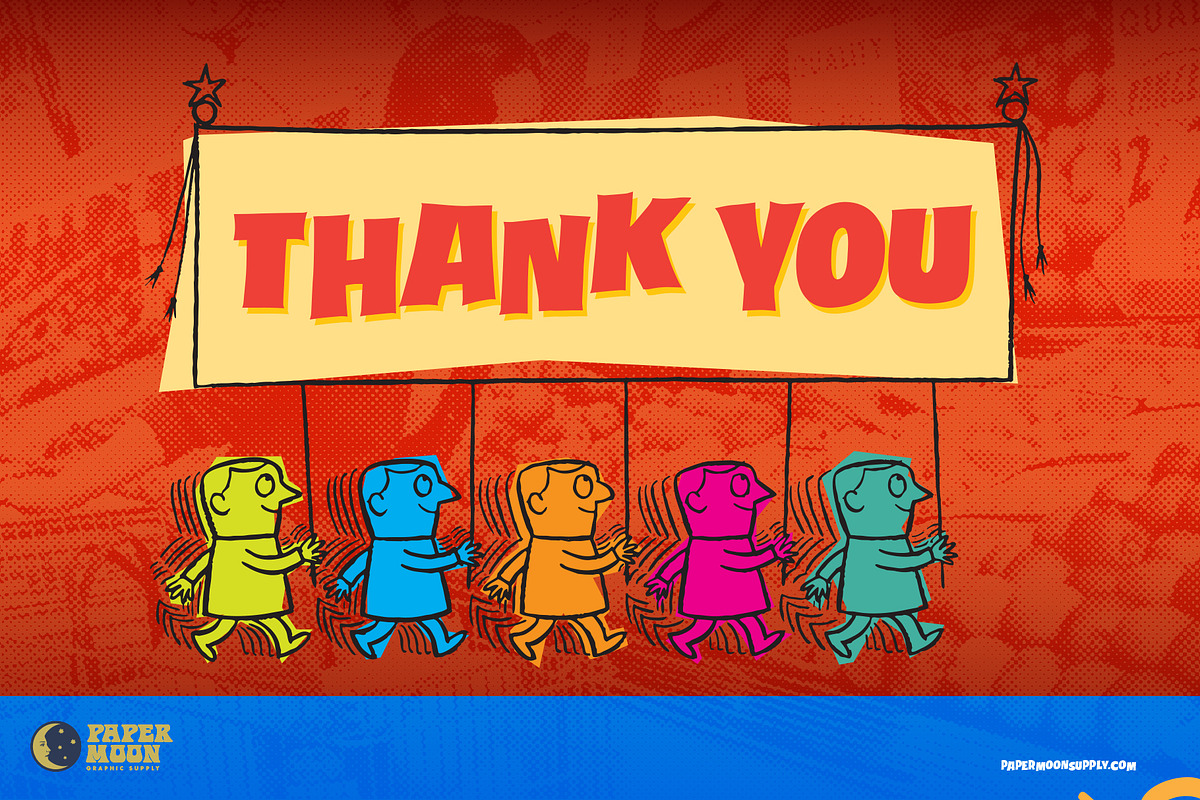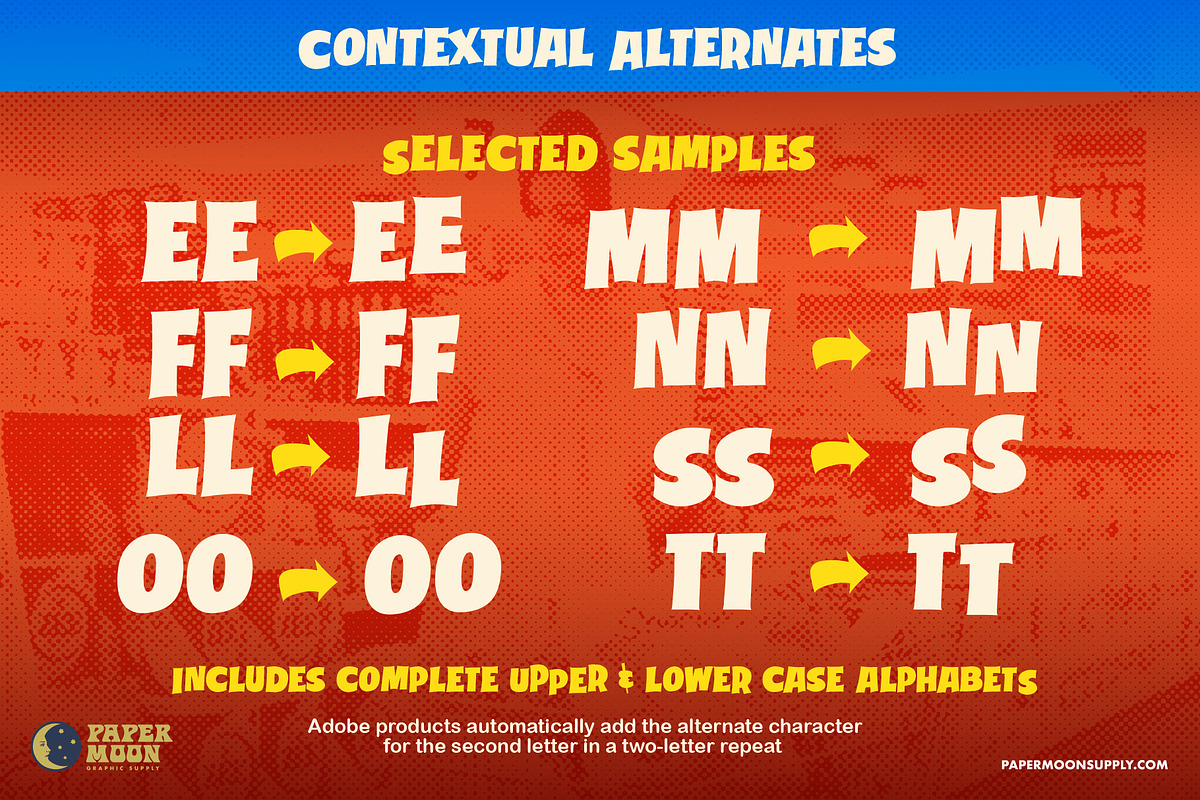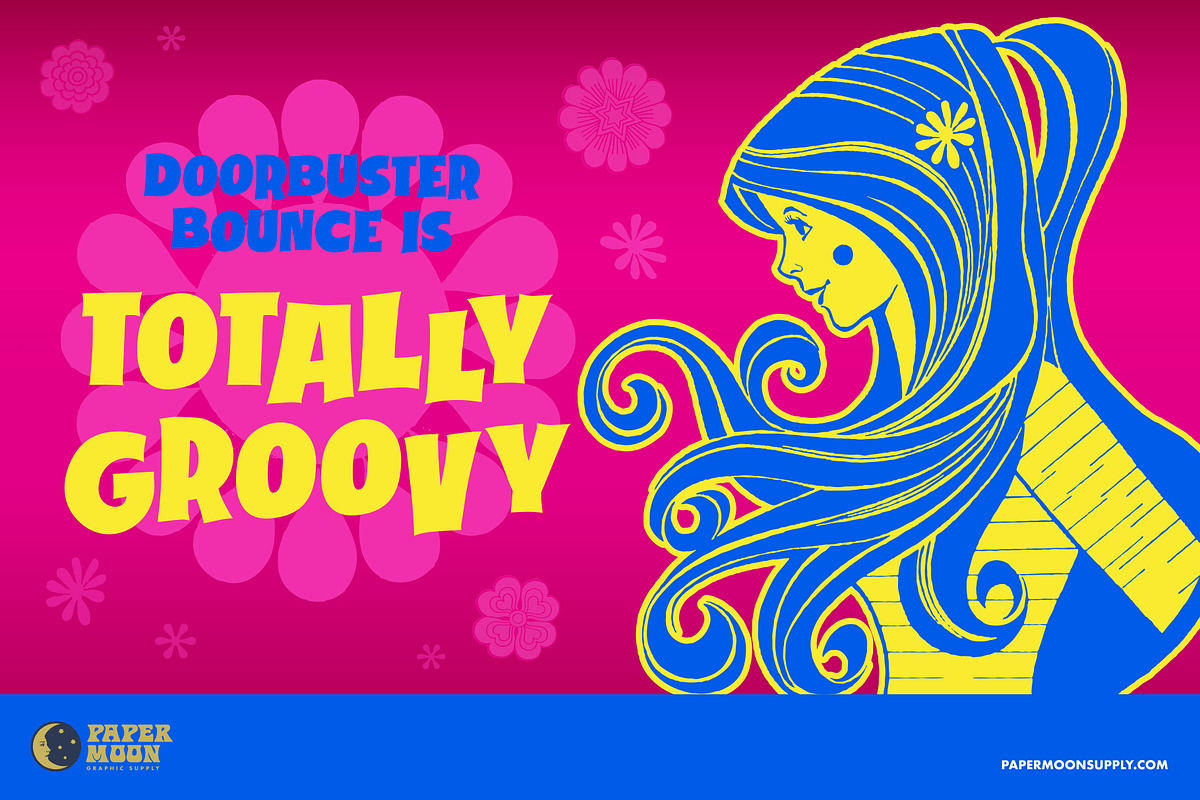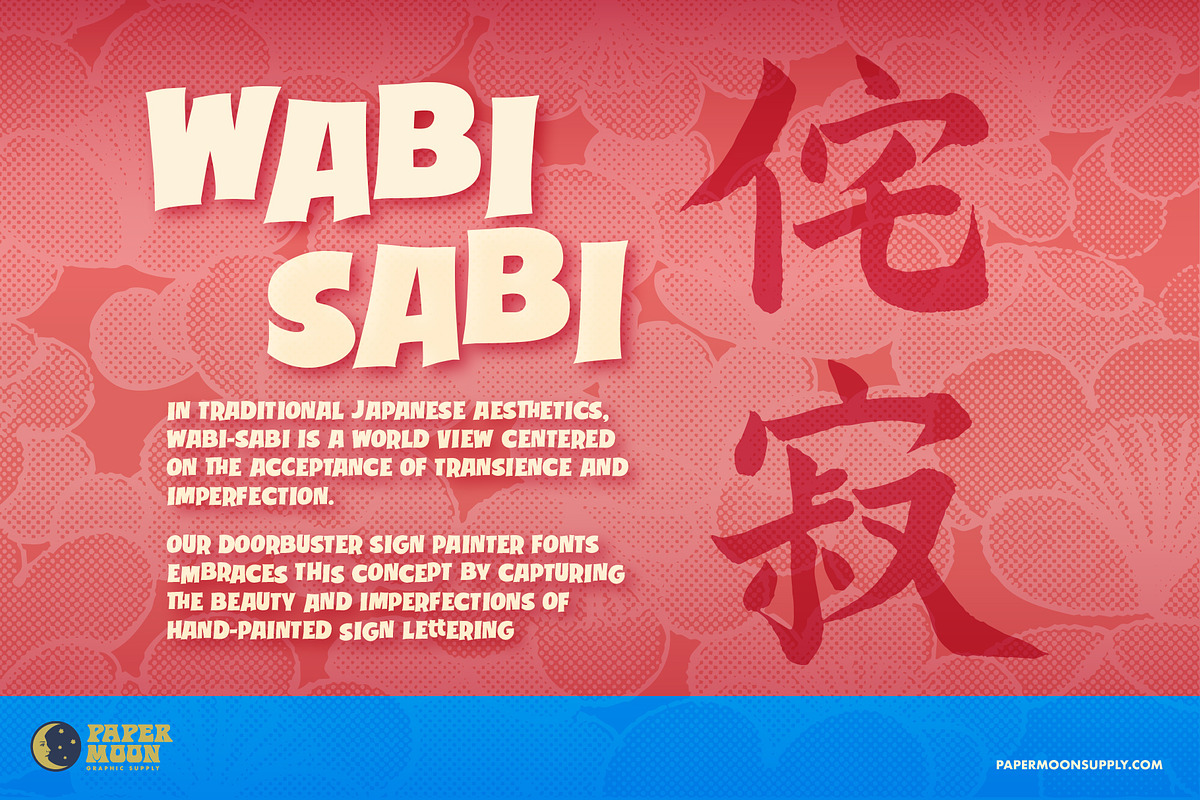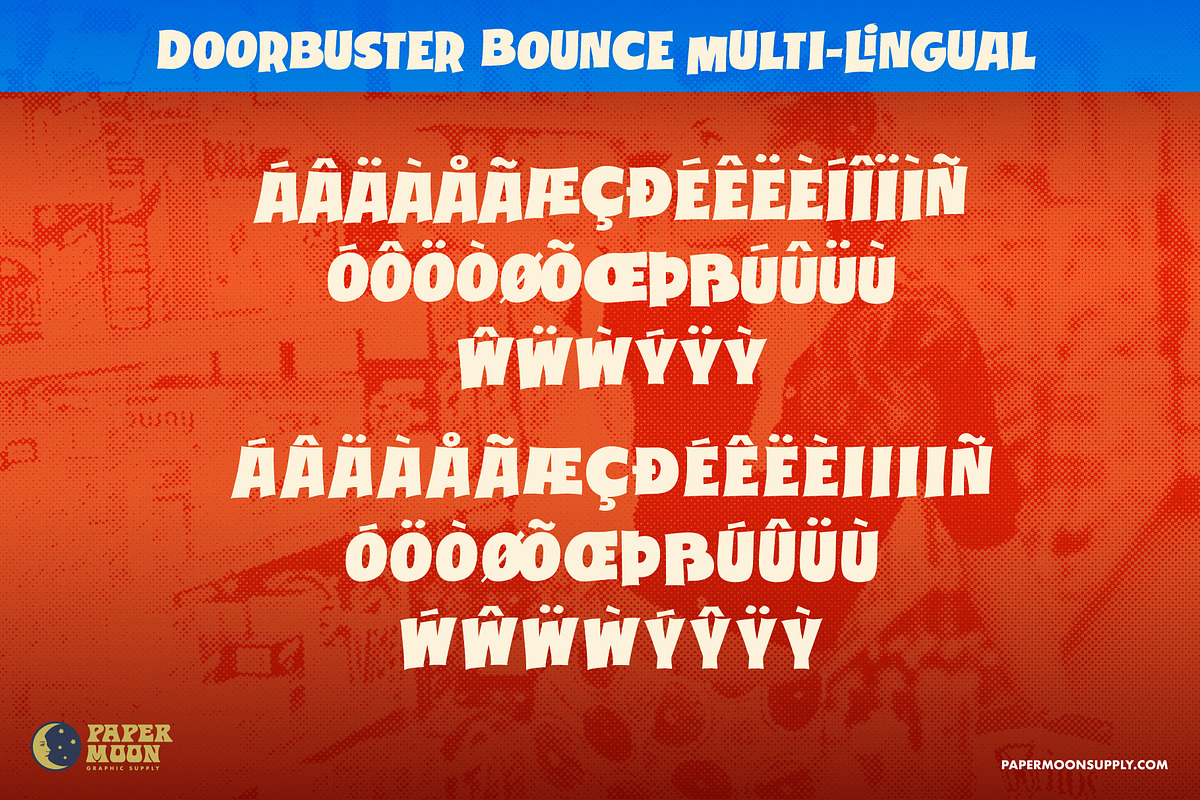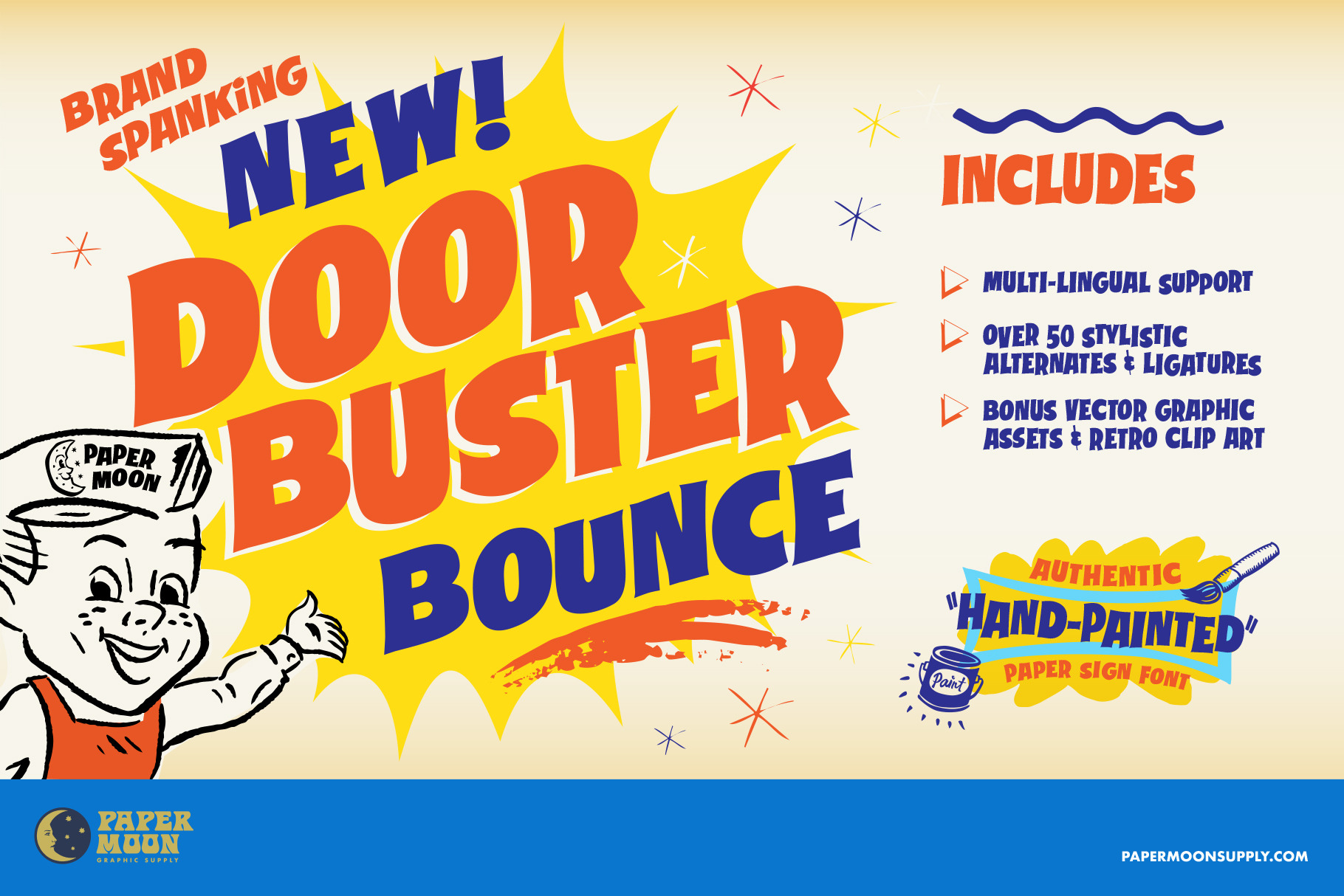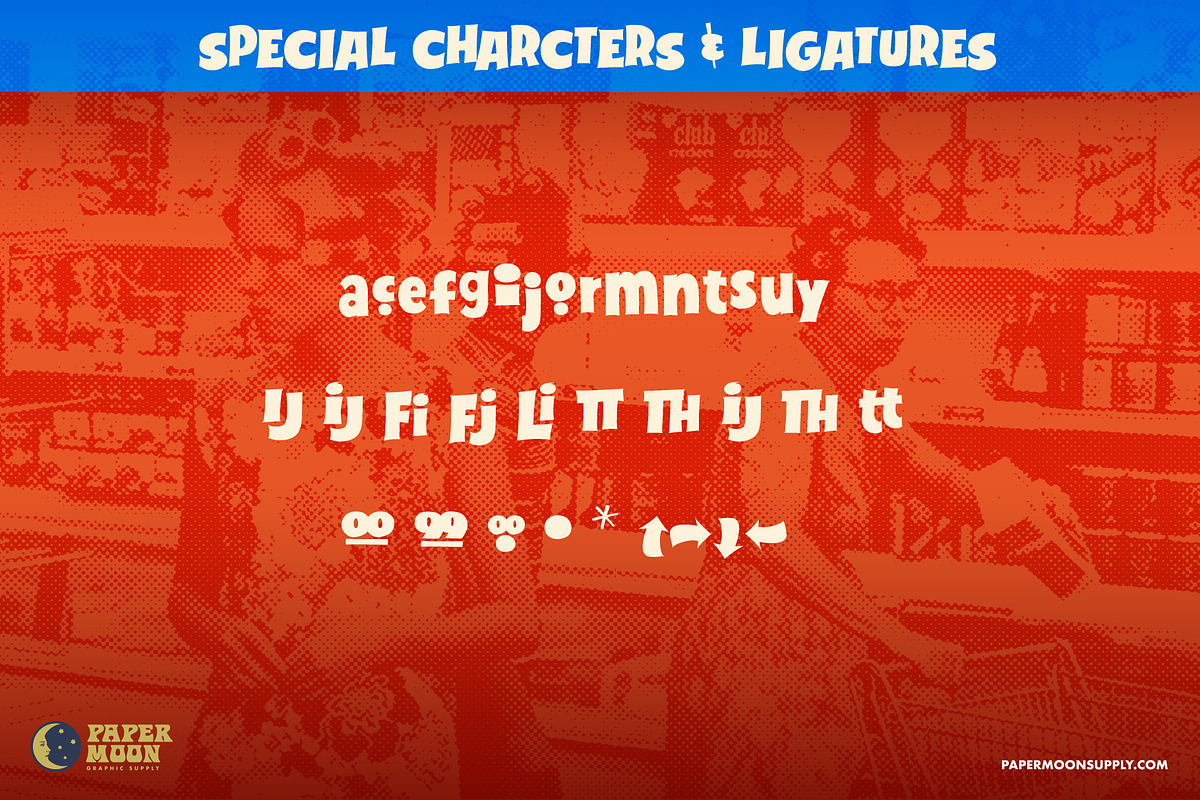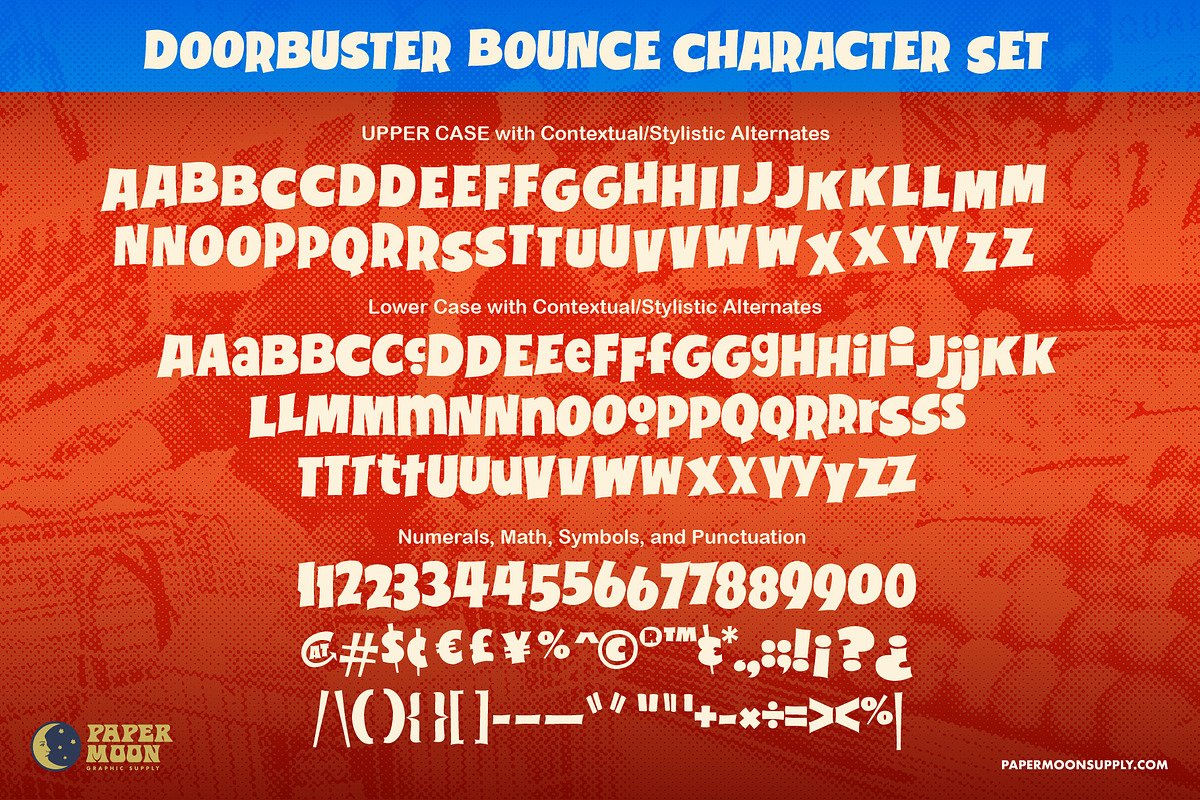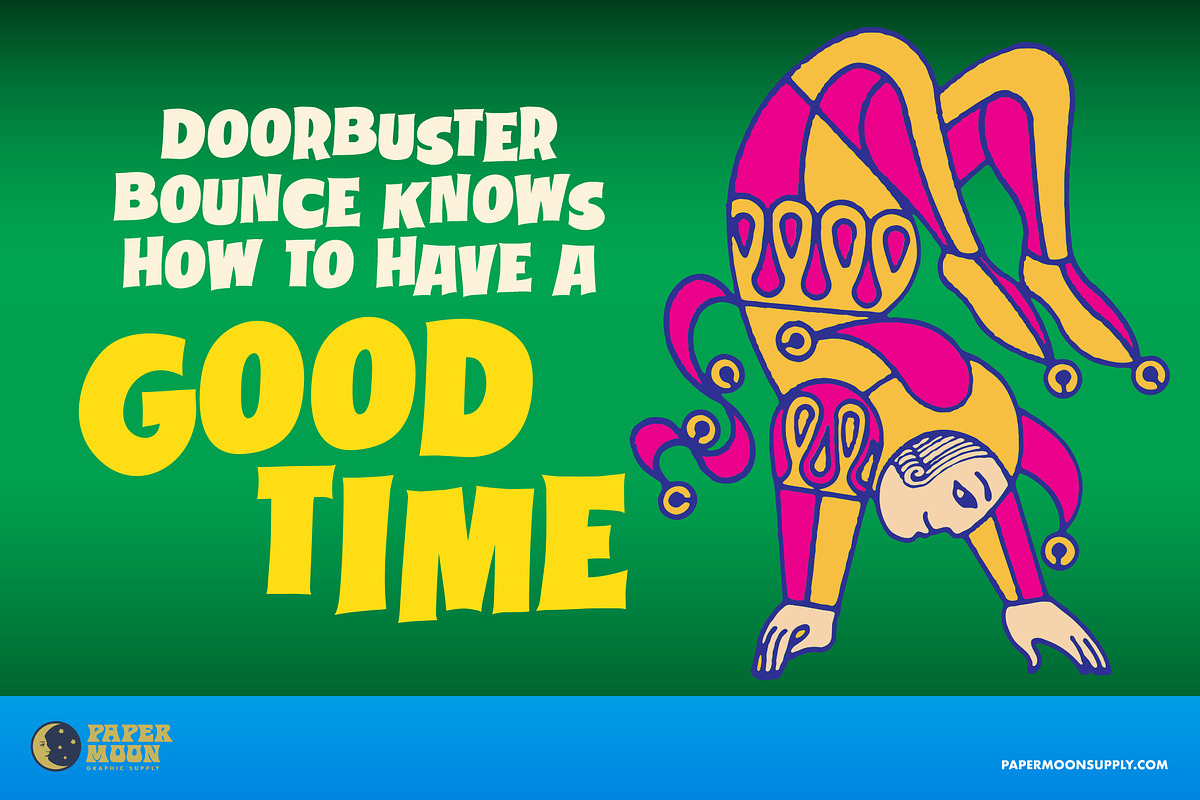
Doorbuster Bounce Sign Painter Font
A new font inspired by vintage hand-painted paper signs.
The Doorbuster collection is based on retro hand-painted paper signs primarily seen in grocery stores from the 1920s through the 1970s. We meticulously hand-drew each font, modeling the spacing and uneven baseline found in vintage sign painting. The purposely organic ascenders and descenders, along with a huge set of ligatures/contextual alternates to avoid the same letters repeating when paired, give it a real hand-lettered look.
Doorbuster Bounce is perfect for both vintage-inspired and contemporary marketing, branding, and packaging designs. It's a classic uppercase sign painter font that has been used from the 1940s thru today. Now it's available in a digital format with all of the authentic look and feel of actual hand-painted letters. Check out a few of the samples included in the thumbnails to see what can be done with it.
- Hand-drawn with over 300 characters
- Includes alphanumerics and ligatures
Doorbuster Bounce was designed by award-winning illustrator and designer Scott Banks. Scott created this font because he could never find a retro script that had the a realistic hand-painted look and feel. Now you can get this typeface for your personal arsenal.7